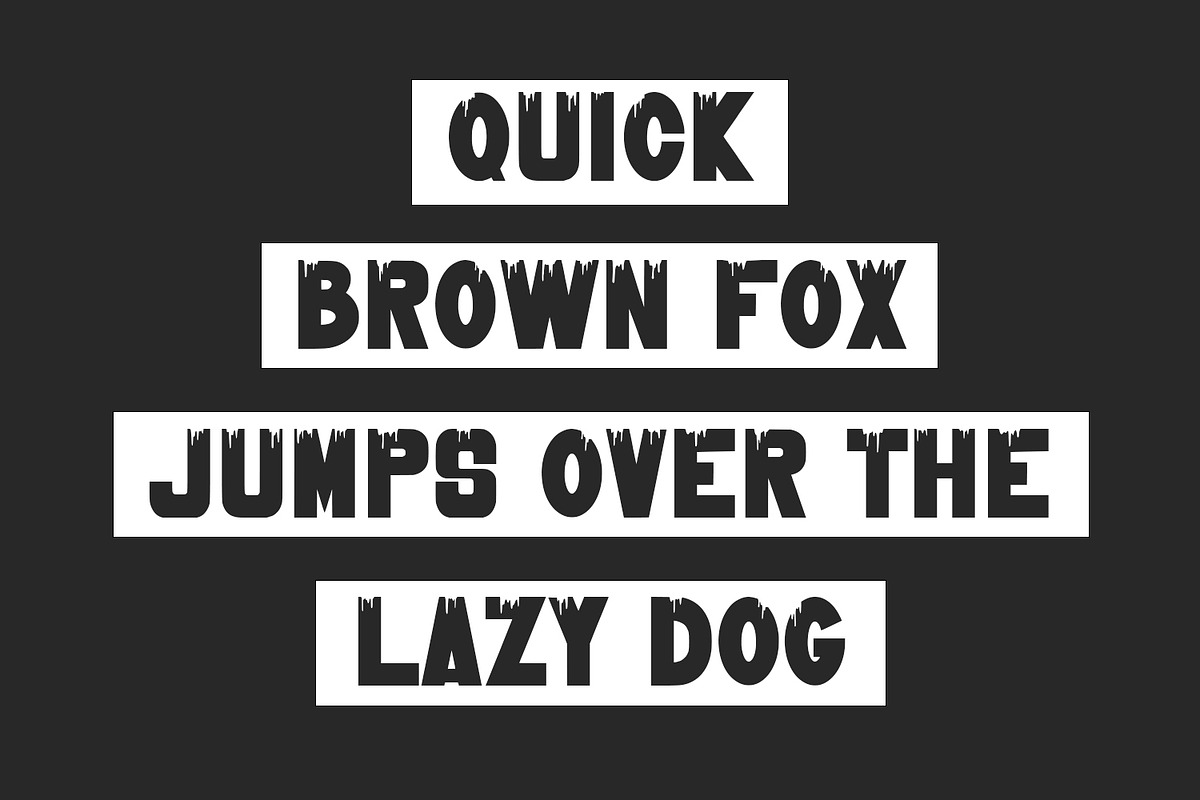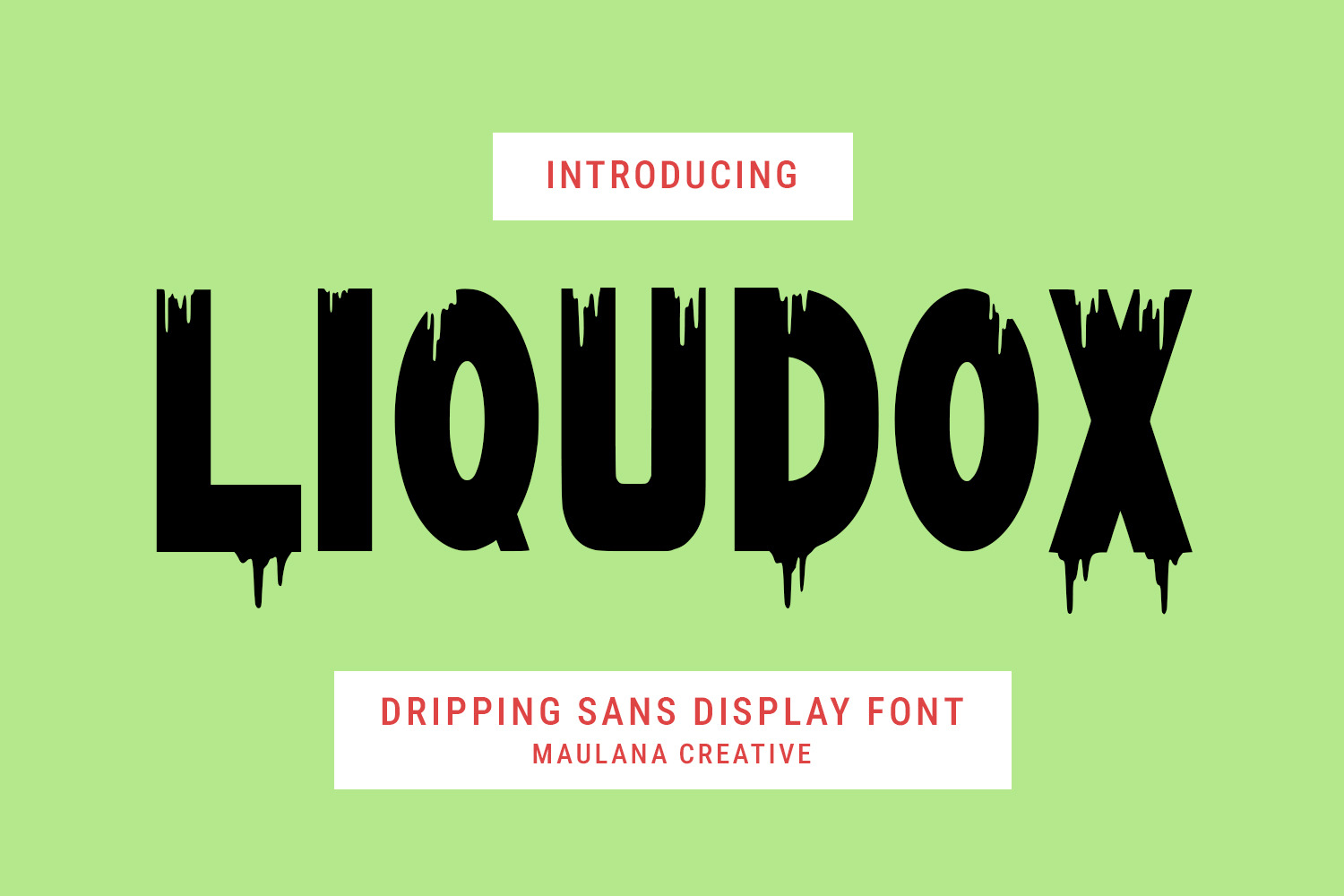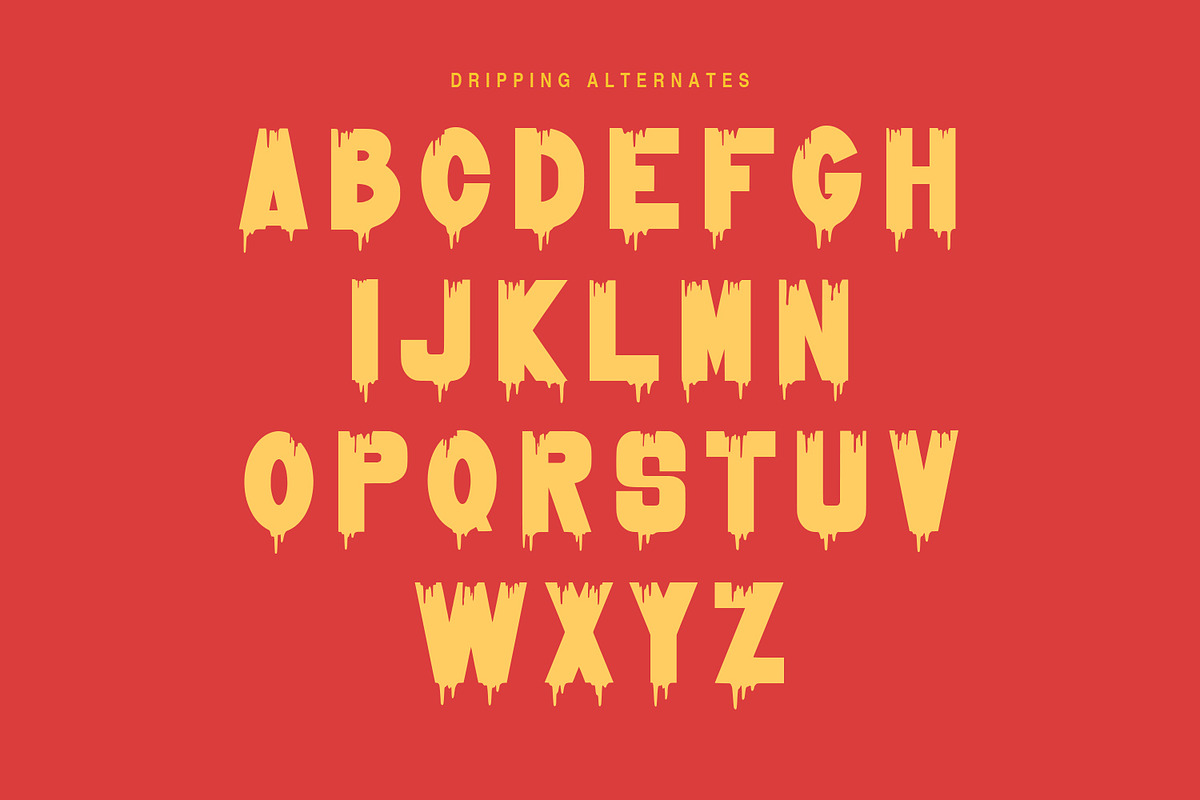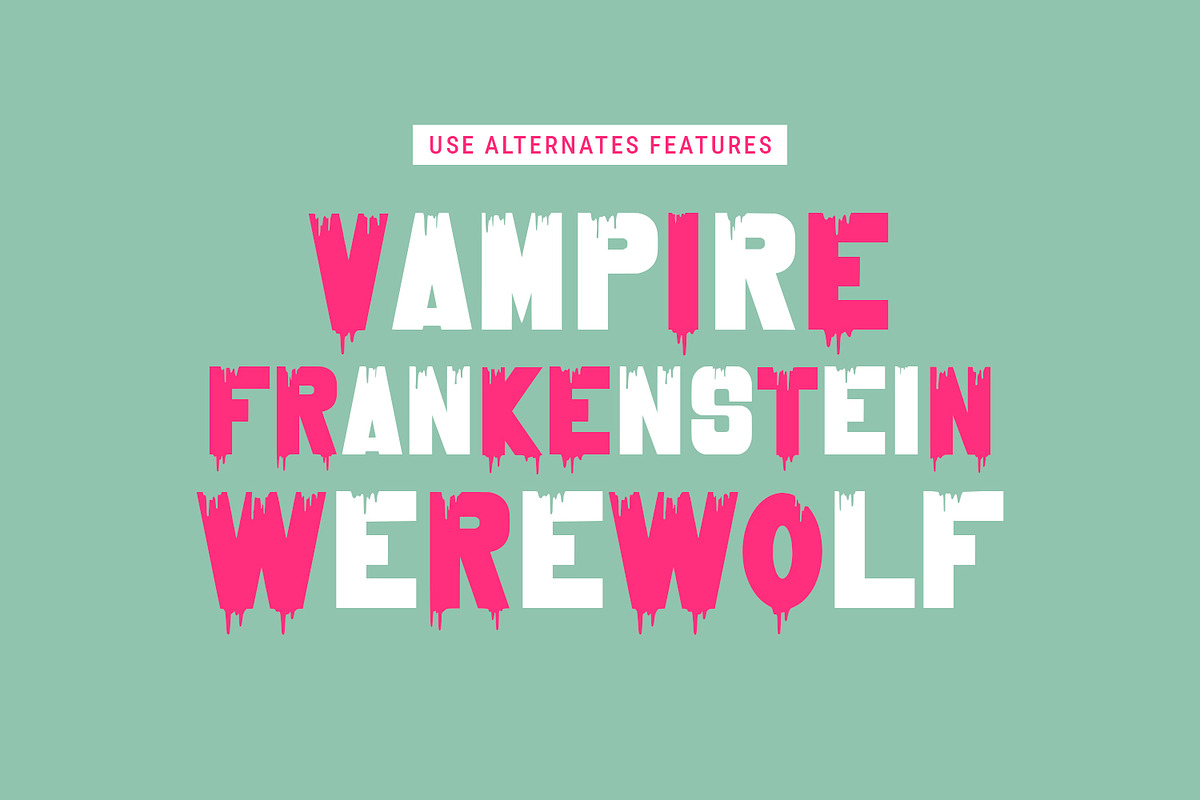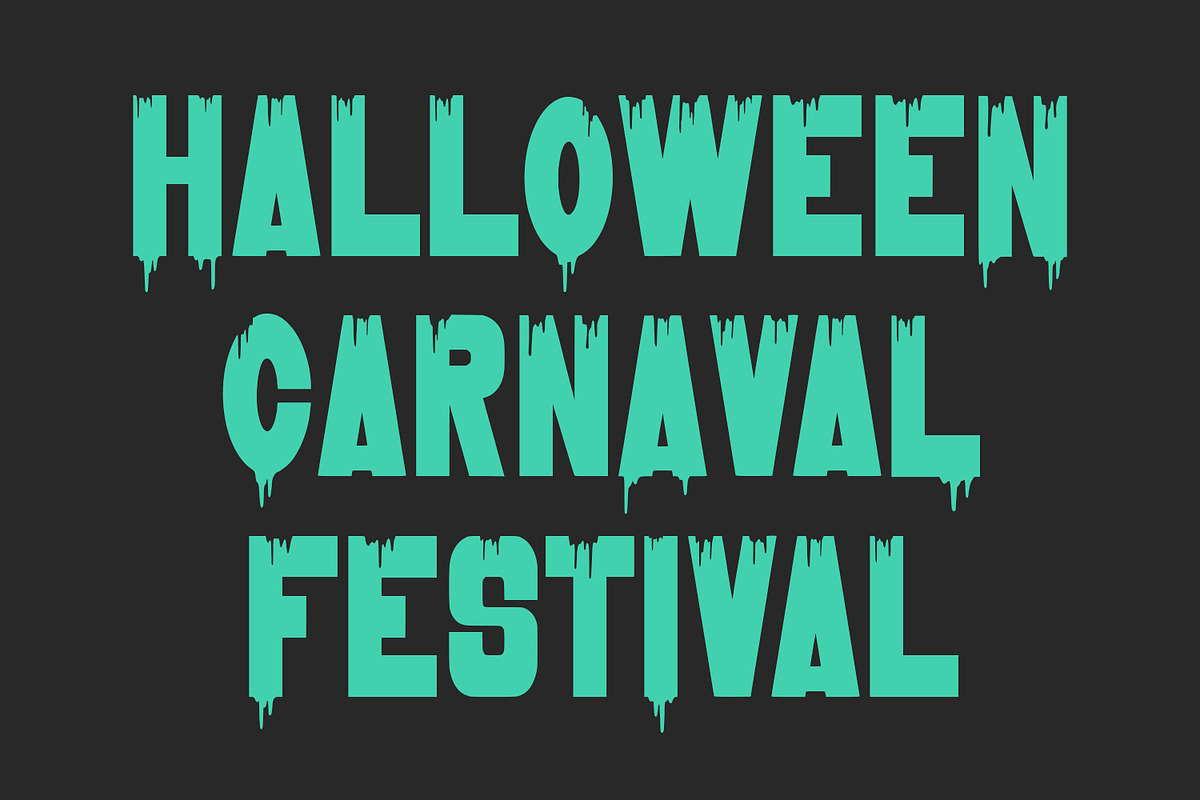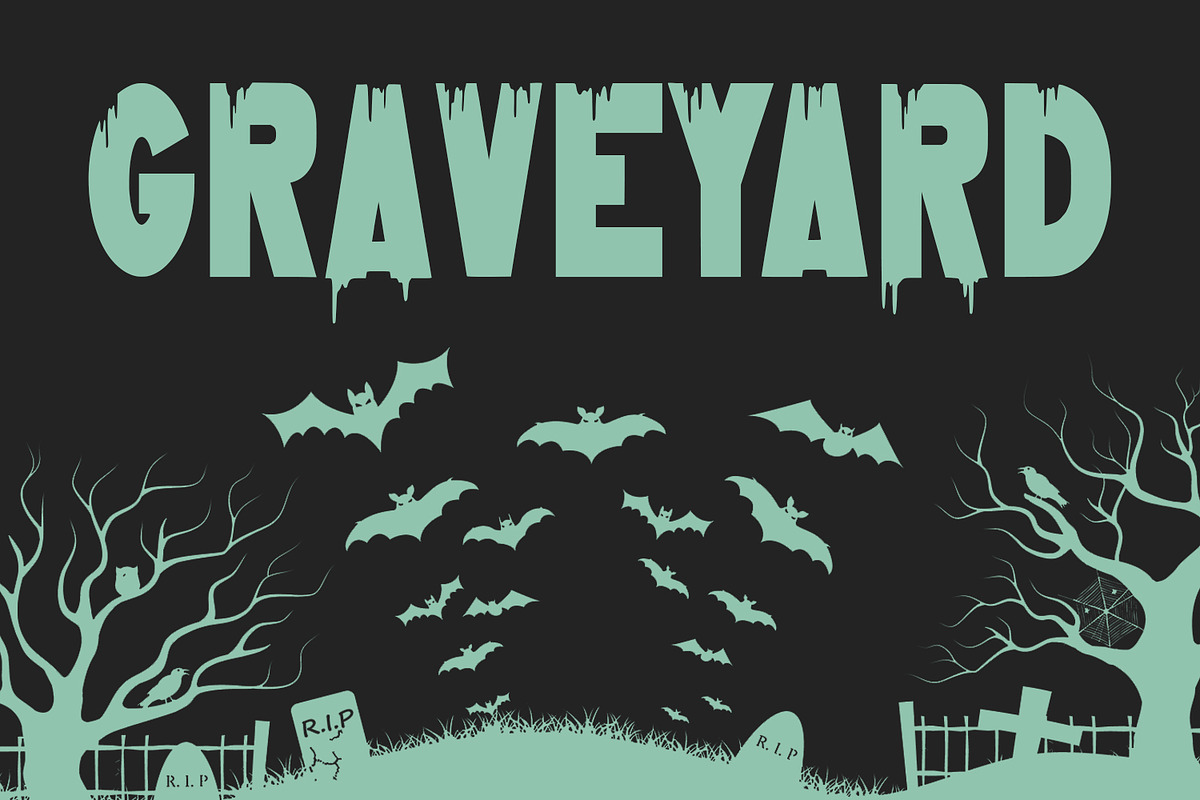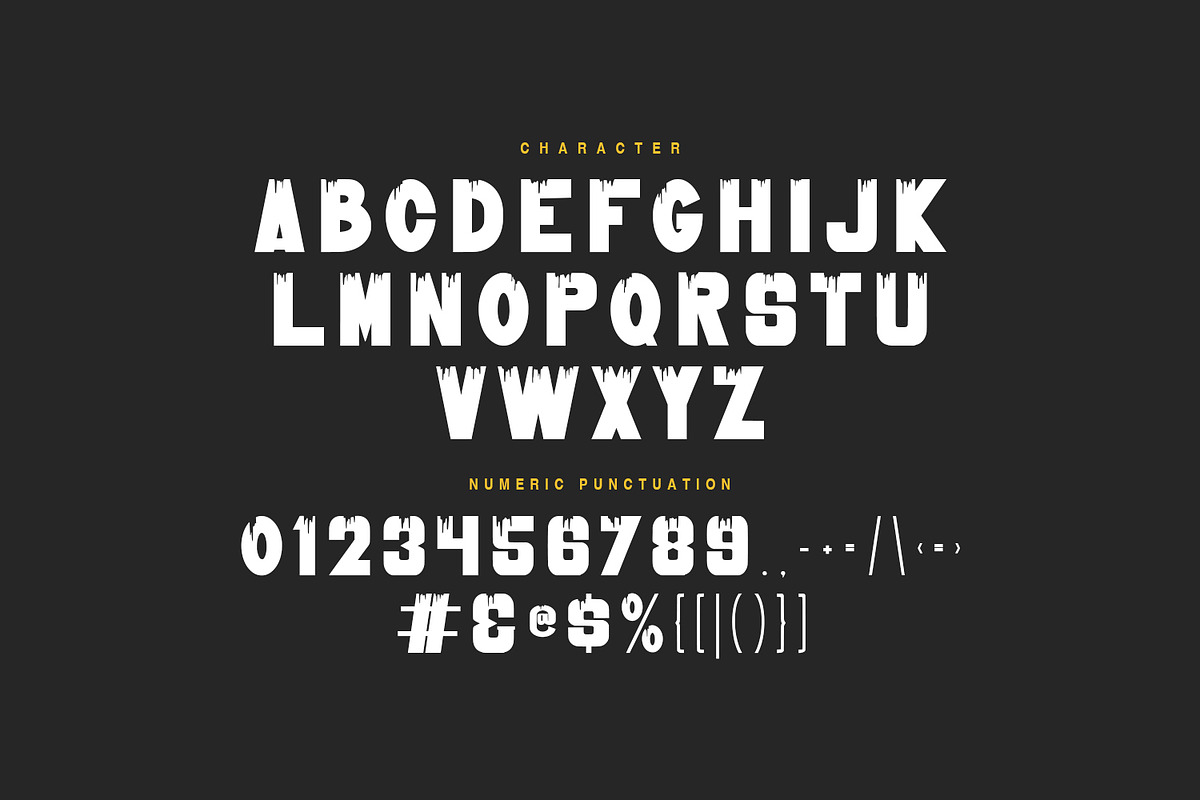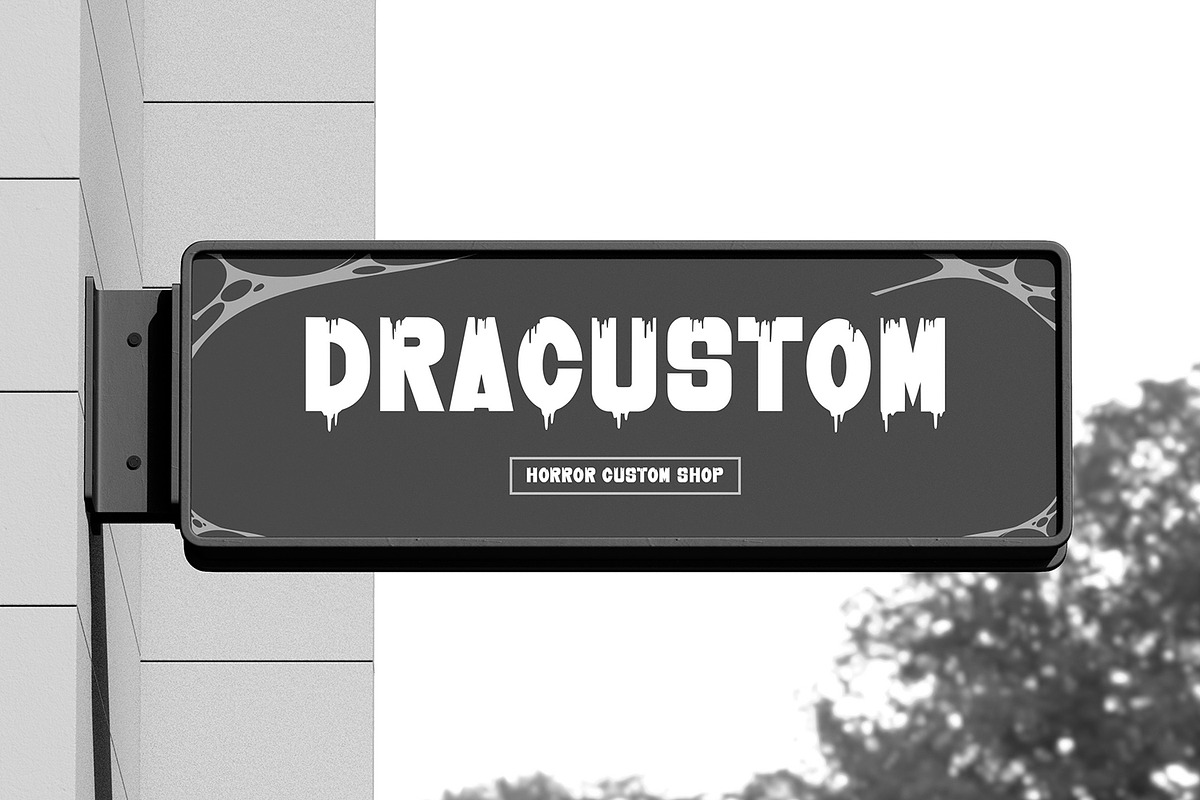
Liqudox Dripping Sans Display Font
Unleash the eerie and playful vibes with Liqudox, the ultimate Dripping Sans Display Font. Liqudox is a bold, modern, all-caps sans-serif typeface distinguished by its unique, gooey, dripping effect at the bottom of each letter. This font is perfect for projects that require a sense of fun horror, grunge, or spooky style.
Key features include:
- Bold, blocky letterforms that ensure high impact and readability even with the dripping effect.
- Dripping Alternates (as seen in the images) that allow you to customize the look of each word, adding flexibility and extra visual interest.
- Full set of uppercase characters, numbers, and essential punctuation.
This font Ideal for: Halloween promotions, horror movie titles, themed party invitations, comic book lettering, spooky store signage, food packaging (especially if it involves syrup or goo!), and any project that needs an edgy, attention-grabbing headline. Get Liqudox and make your designs truly ooze with style!